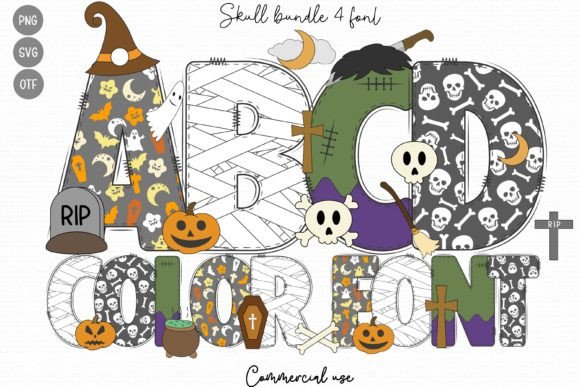
Journey into the eerie enchantment of Halloween with Skull Bundle Font, a spine-tingling collection of letters and symbols that will cast a spell on your designs. Each character is a masterpiece of intricate details, capturing the mystical essence of moonlit nights, lurking creatures, and the mischievous grins of pumpkins. Unleash your creativity and weave a web of ghostly messages or add a touch of hair-raising charm to your designs.
This font family is a symphony of colors, adding vibrancy and energy to your projects. The black version is compatible with Cricut Design Space and other cutting machines, making it ideal for crafting eerie invitations, spooky decorations, and spine-chilling cards. For those seeking a more vibrant experience, the color version of Skull Bundle Font captivates with its captivating hues, compatible with design programs like PhotoShop, Illustrator, Silhouette, and Inkscape.
Embrace the allure of Halloween and let Skull Bundle Font be your creative companion. Whether you're designing invitations, decorations, or cards, this font family promises to make your creations hauntingly beautiful. It's the perfect choice for adding a touch of eerie elegance to your projects, leaving a lasting impression on your audience.